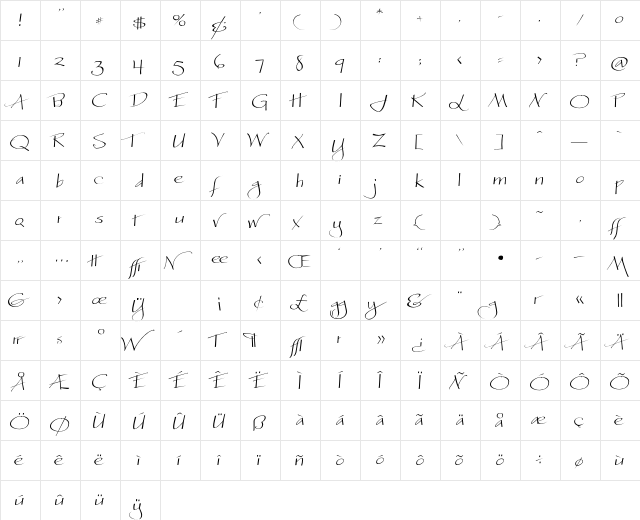
DalyHand Regular
Design Context for DalyHand Typeface
DalyHand flows with the natural rhythm of handwritten lettering, making it ideal for designs that call for warmth and personal expression.
Font Pairing: Combine DalyHand with a simple geometric sans for maximum contrast — the tension between flowing curves and clean structure is a classic typographic pairing.
Pro Tip: Use DalyHand for short runs of text — names, titles, or taglines. Extended body copy in script faces tires the eye quickly.